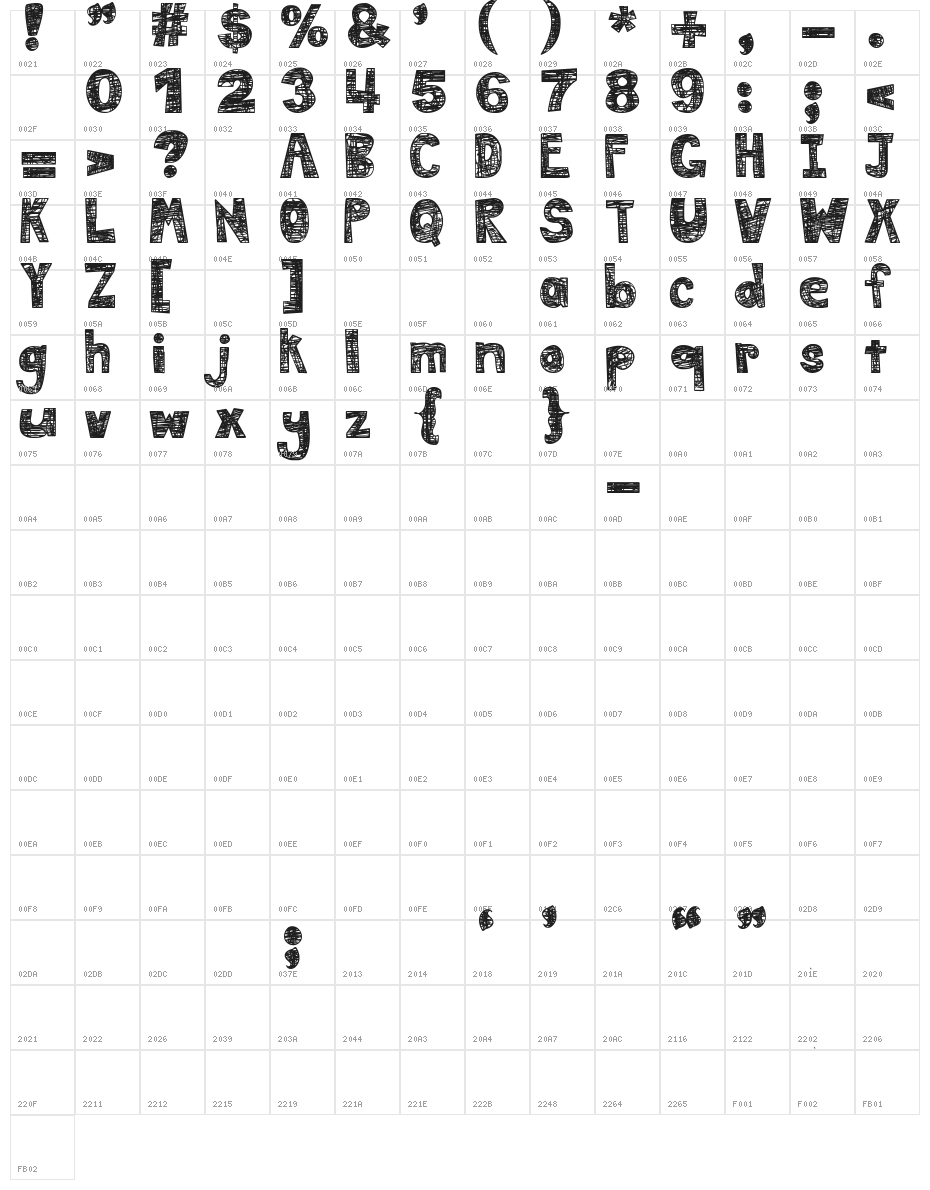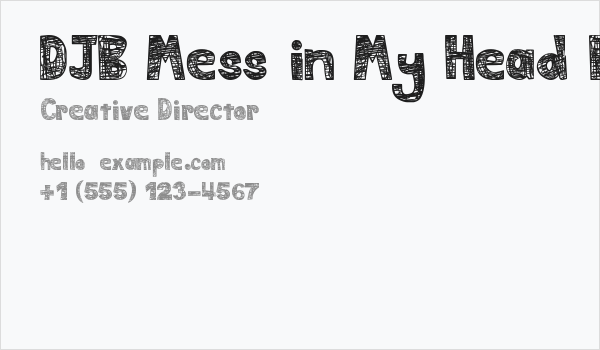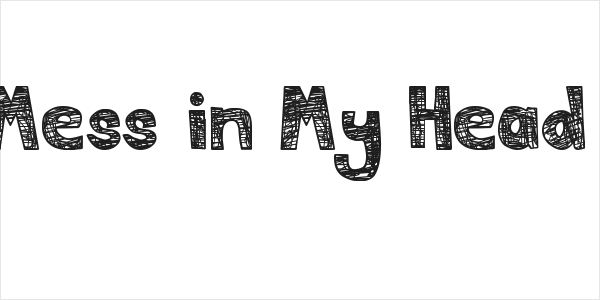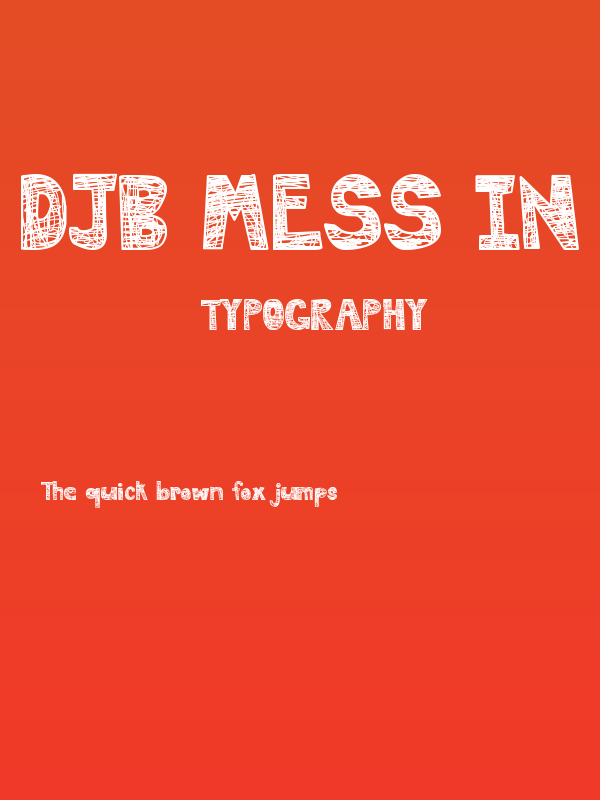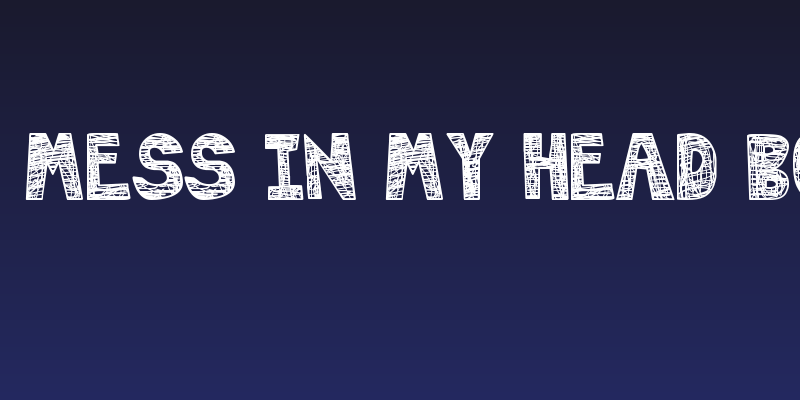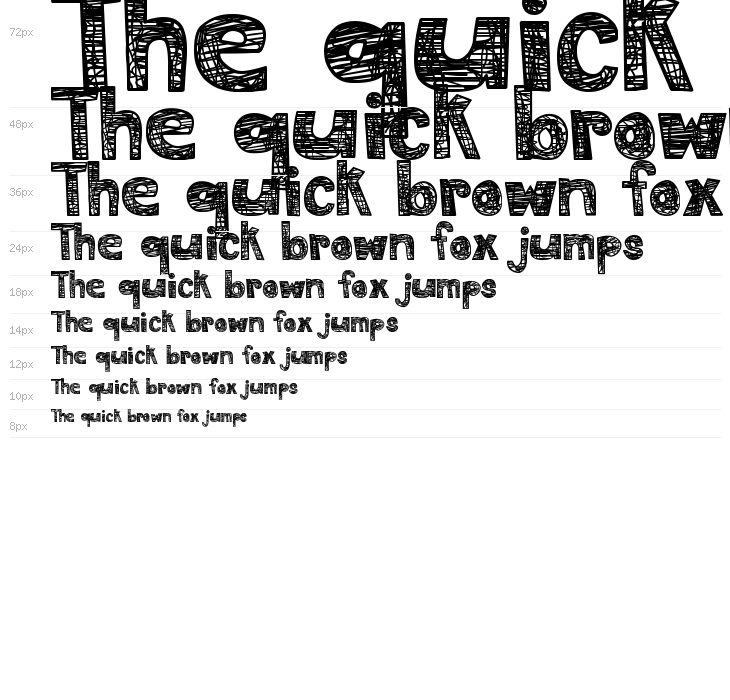
DJB Mess in My Head Bold Font
DJB Mess in My Head Bold Description
This font features a playful and chaotic design with a hand-drawn aesthetic. Each character is filled with intricate scribbles and lines, giving it a textured and dynamic appearance. The letters are bold and slightly irregular, adding to the whimsical and artistic feel. This style is reminiscent of doodles or sketches, making it stand out with its unique and creative flair. The font maintains legibility despite its busy design, making it suitable for eye-catching displays.
Proposed ProjectsIdeal for creative projects such as children's book covers, playful posters, artistic branding, and unique invitations.